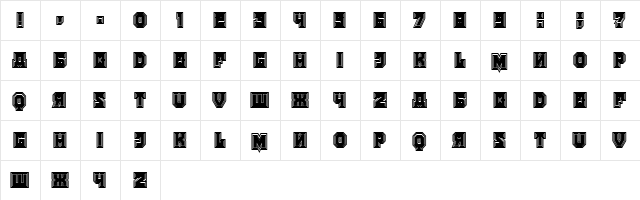
Kalinka College Regular
Design Context for Kalinka College Typeface
Kalinka College has the bold swagger of sports branding: strong, assertive letterforms designed to dominate headlines and jerseys alike.
Built for sports team identities, athletic apparel, event posters, and high-energy promotional material.
Pro Tip: Kalinka College thrives on contrast — try it large, bold, and tight against a clean background for maximum visual impact.